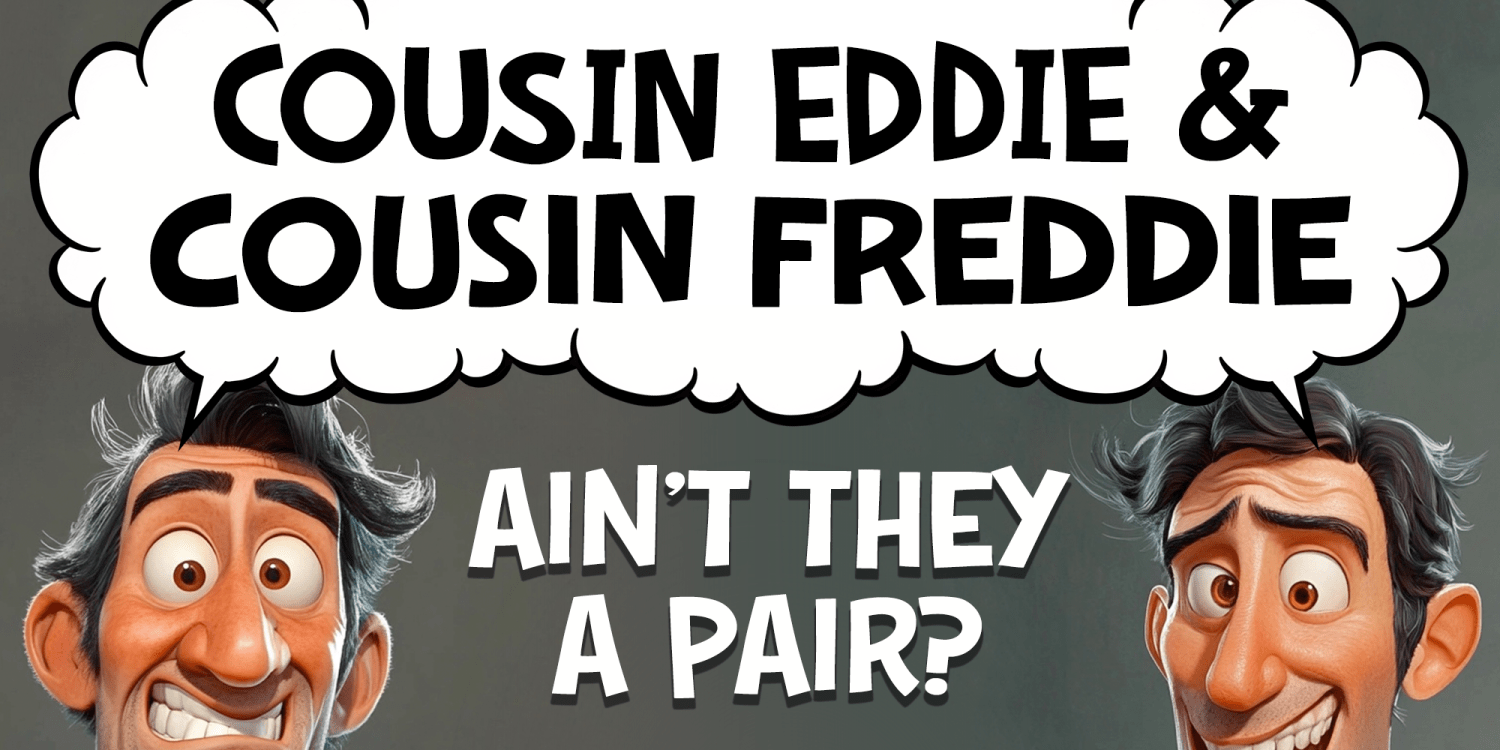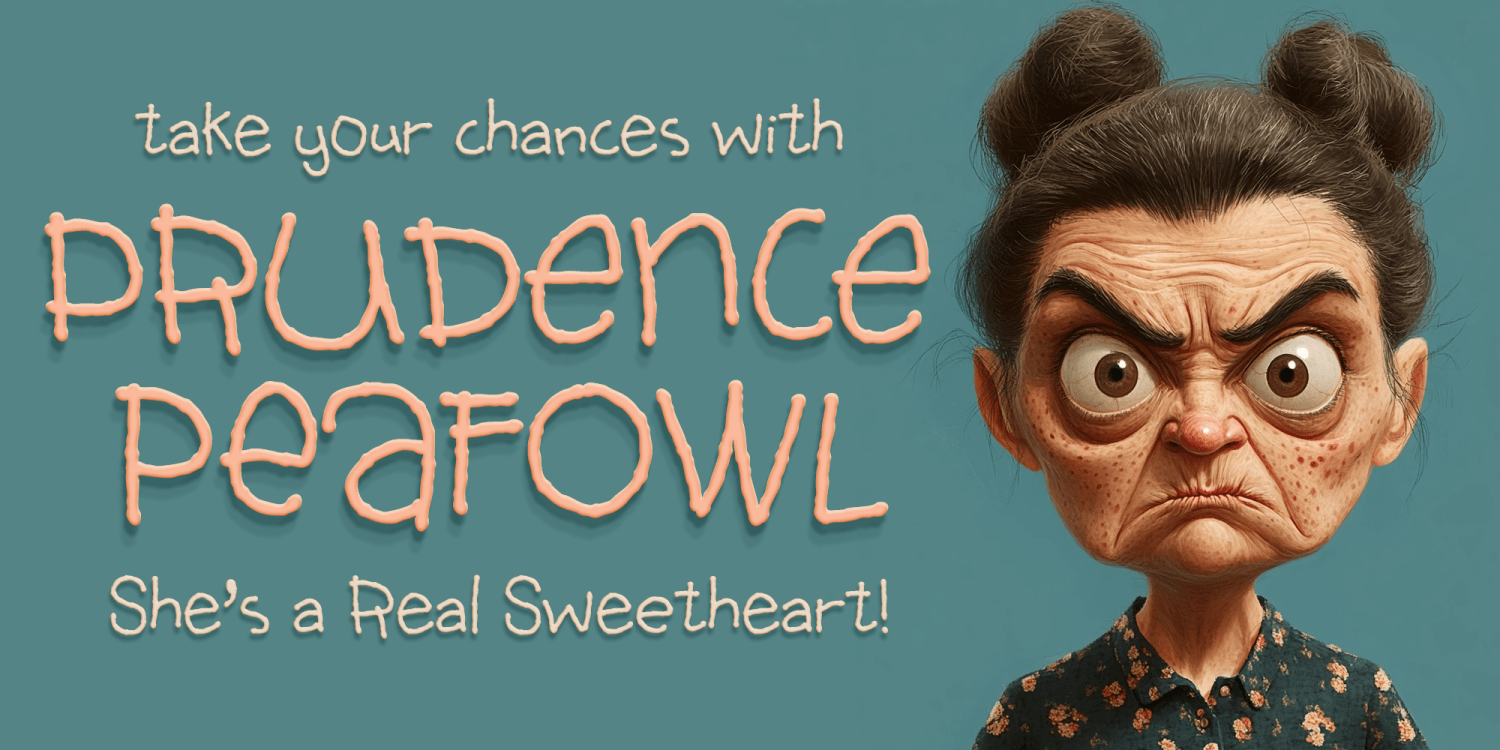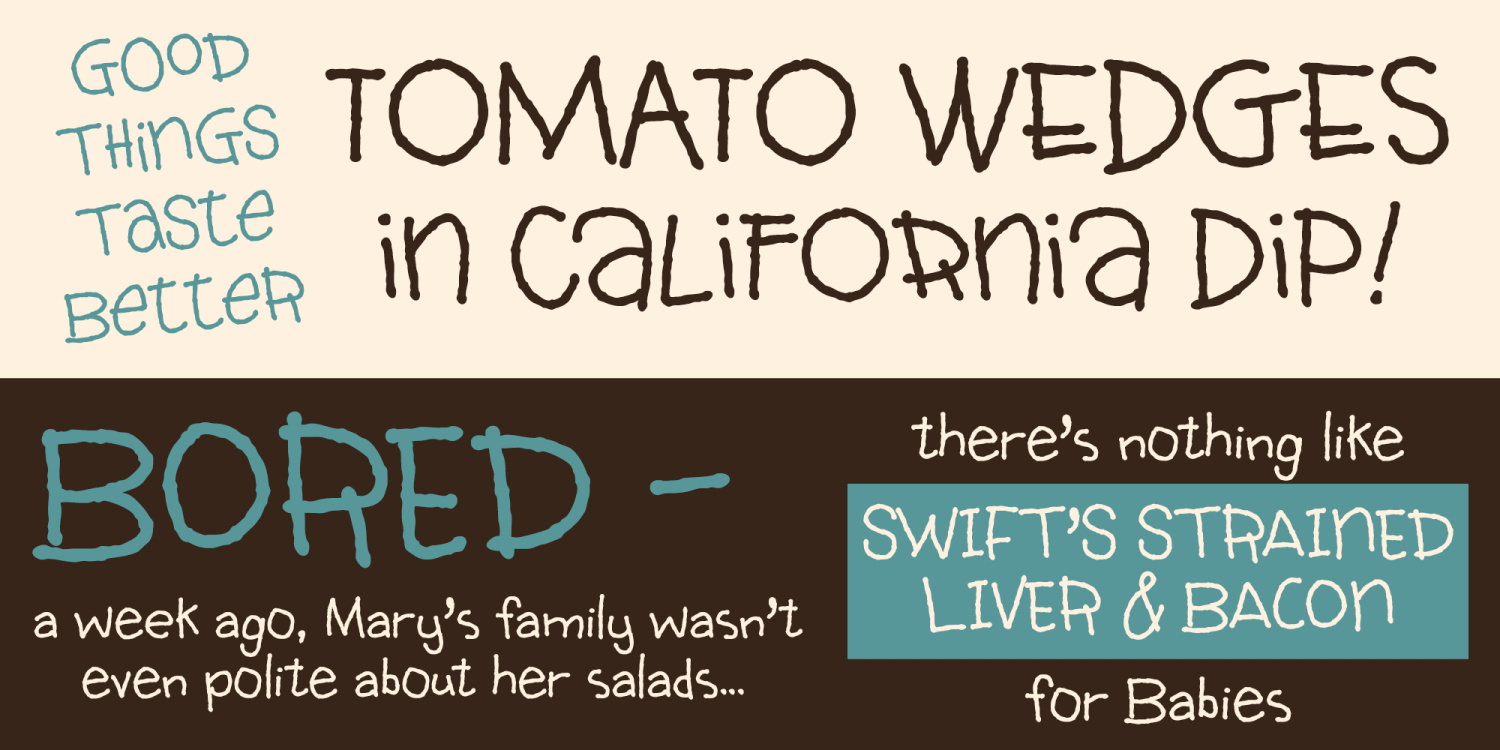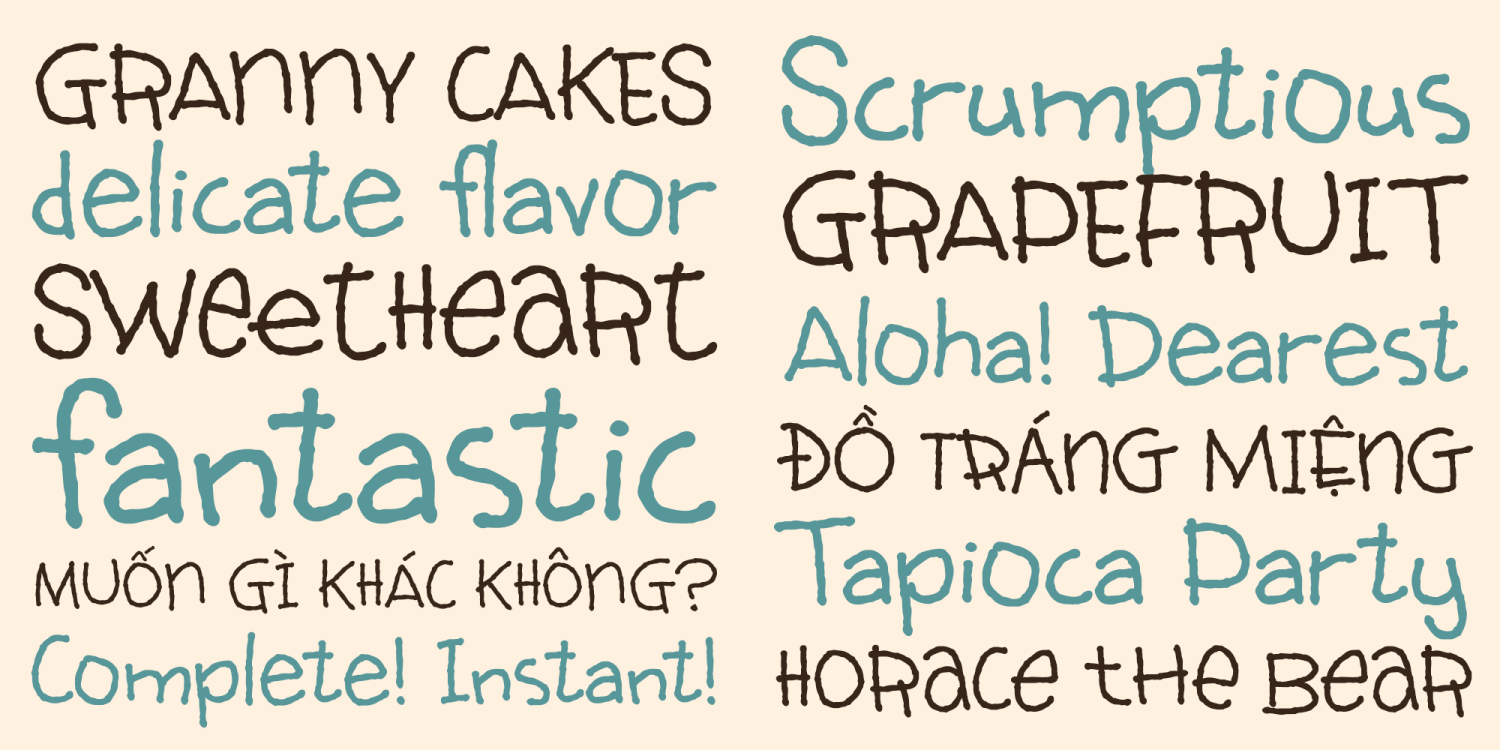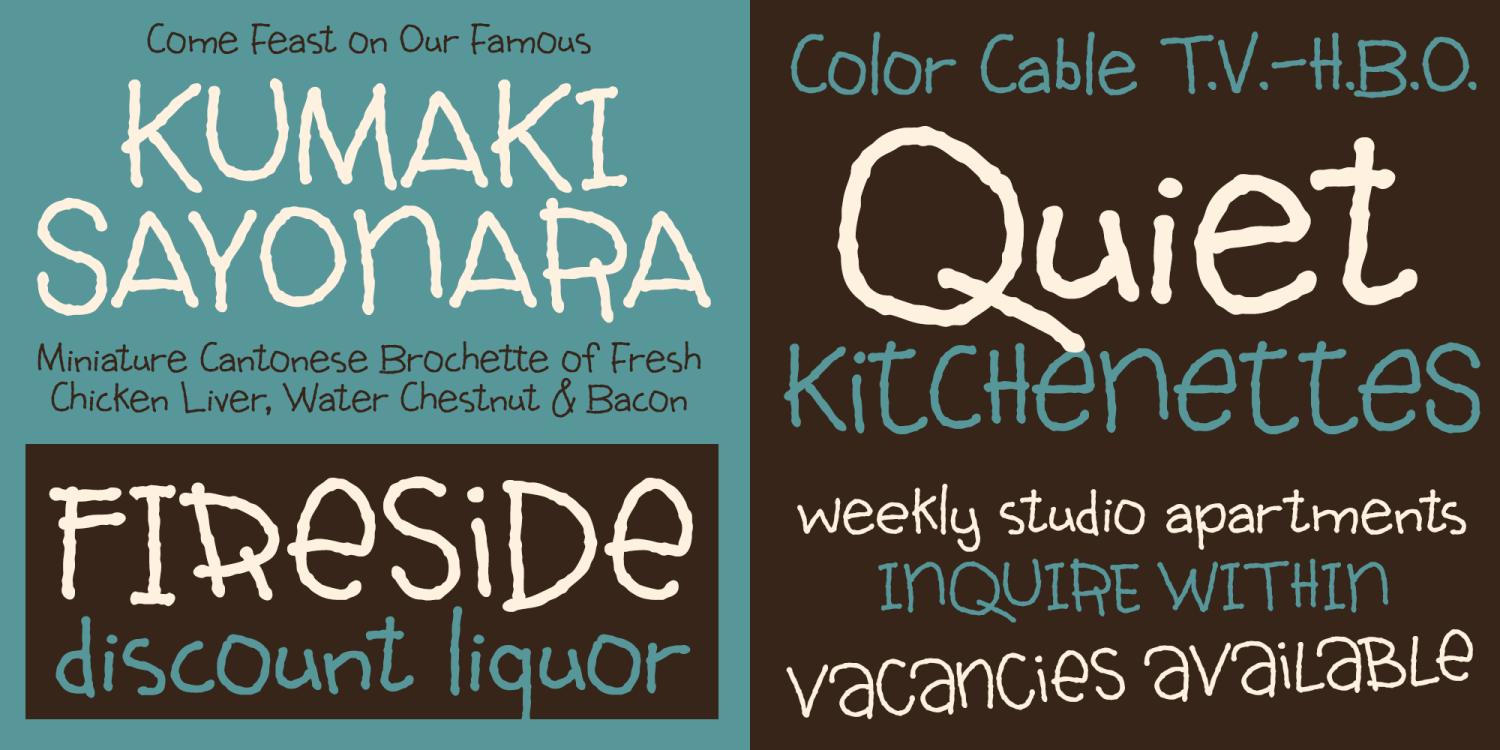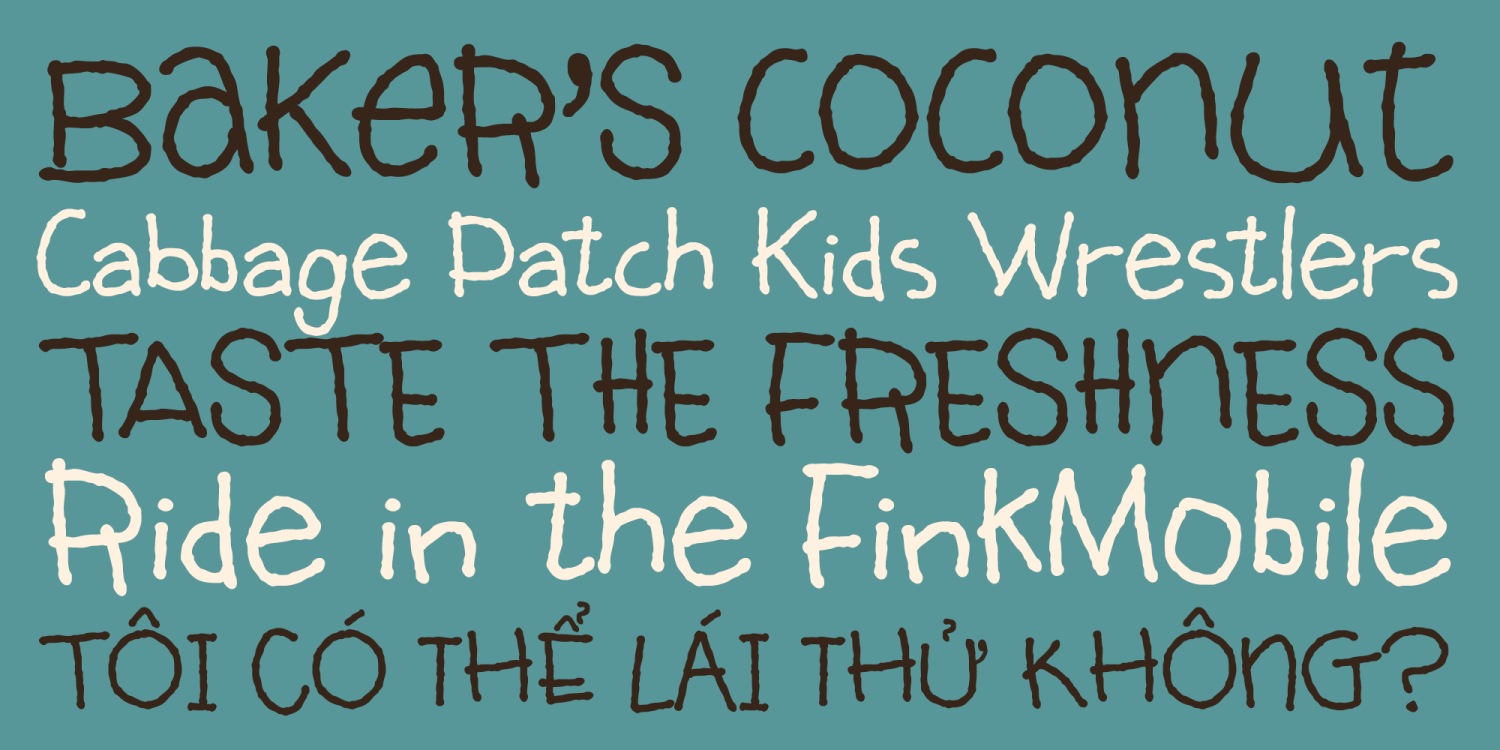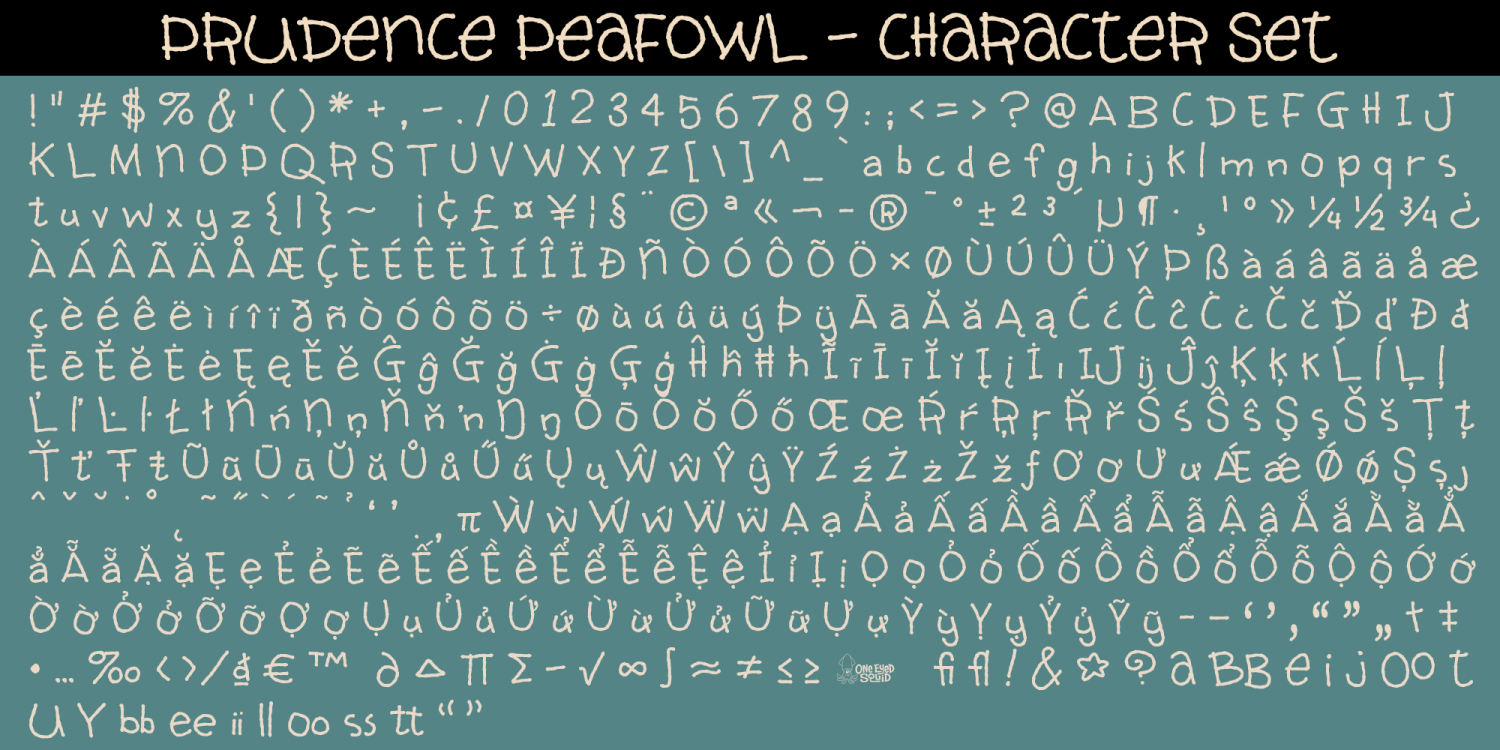
Prudence Peafowl
Prudence Peafowl is a quirky display font family with sweet charm, clumsy character, and an offbeat personality that grows on you. The family includes a Regular style with an endearing, awkward warmth and an alternate Caps style loaded with more assertive spunk, giving you flexible options for playful, expressive typography. Use each style independently or mix them together for extra visual funk and personality. Ideal for headlines, posters, branding, packaging, greeting cards, invitations, social media graphics, and other creative projects that benefit from a whimsical, unconventional typographic voice. Includes extended Latin language support, including Vietnamese.
Caps
Regular
Prudence Peafowl includes 508 glyphs.